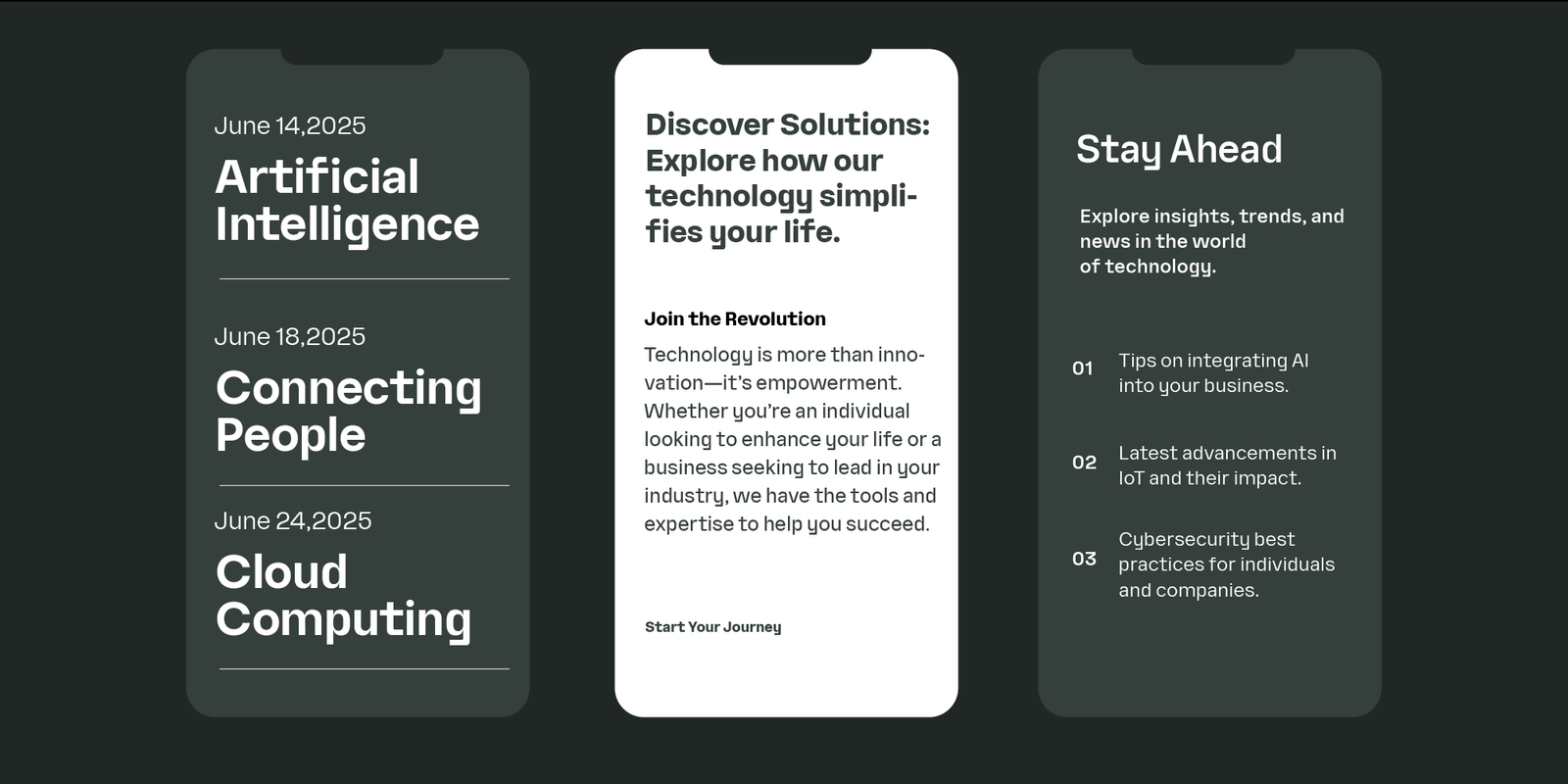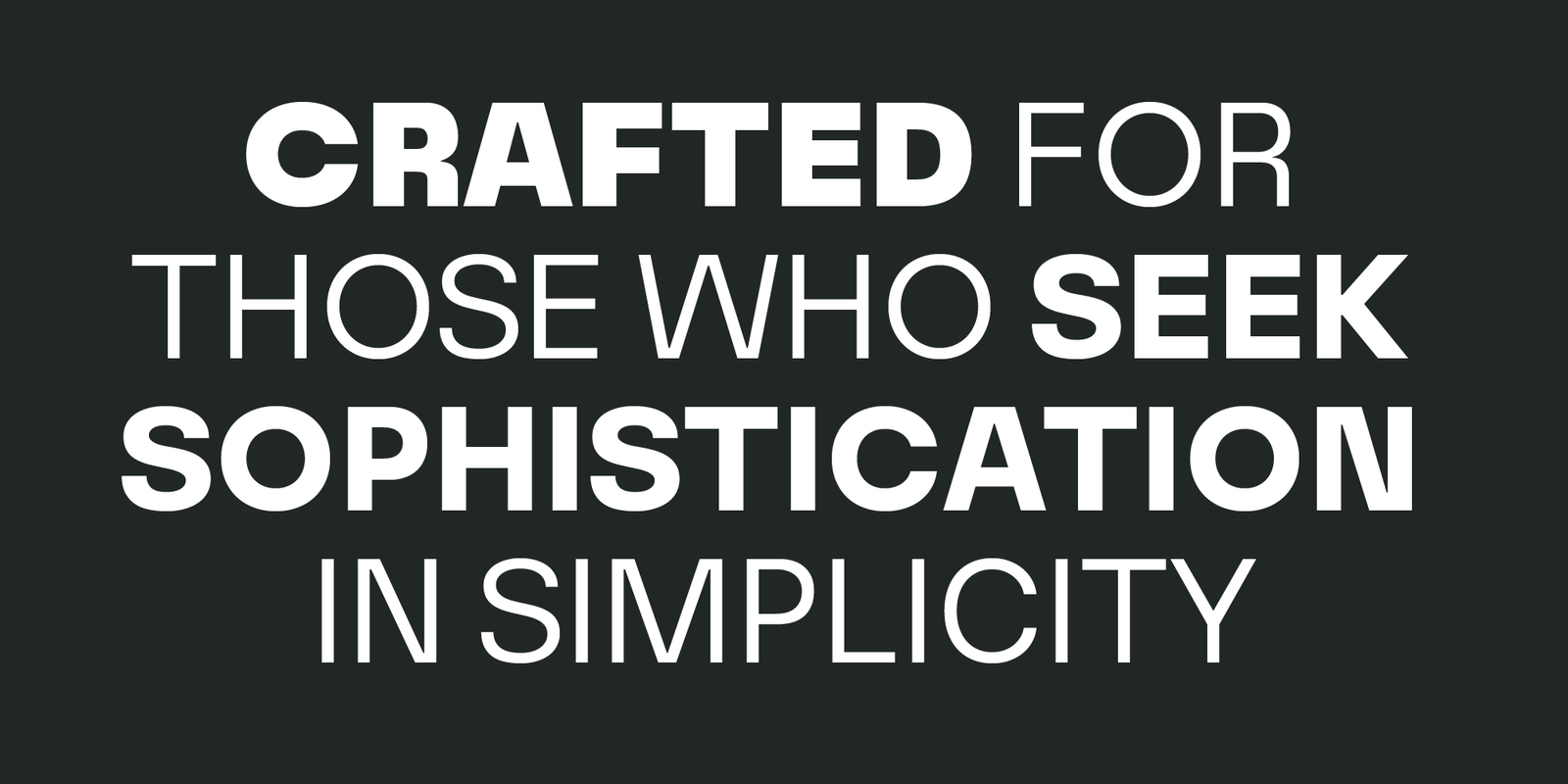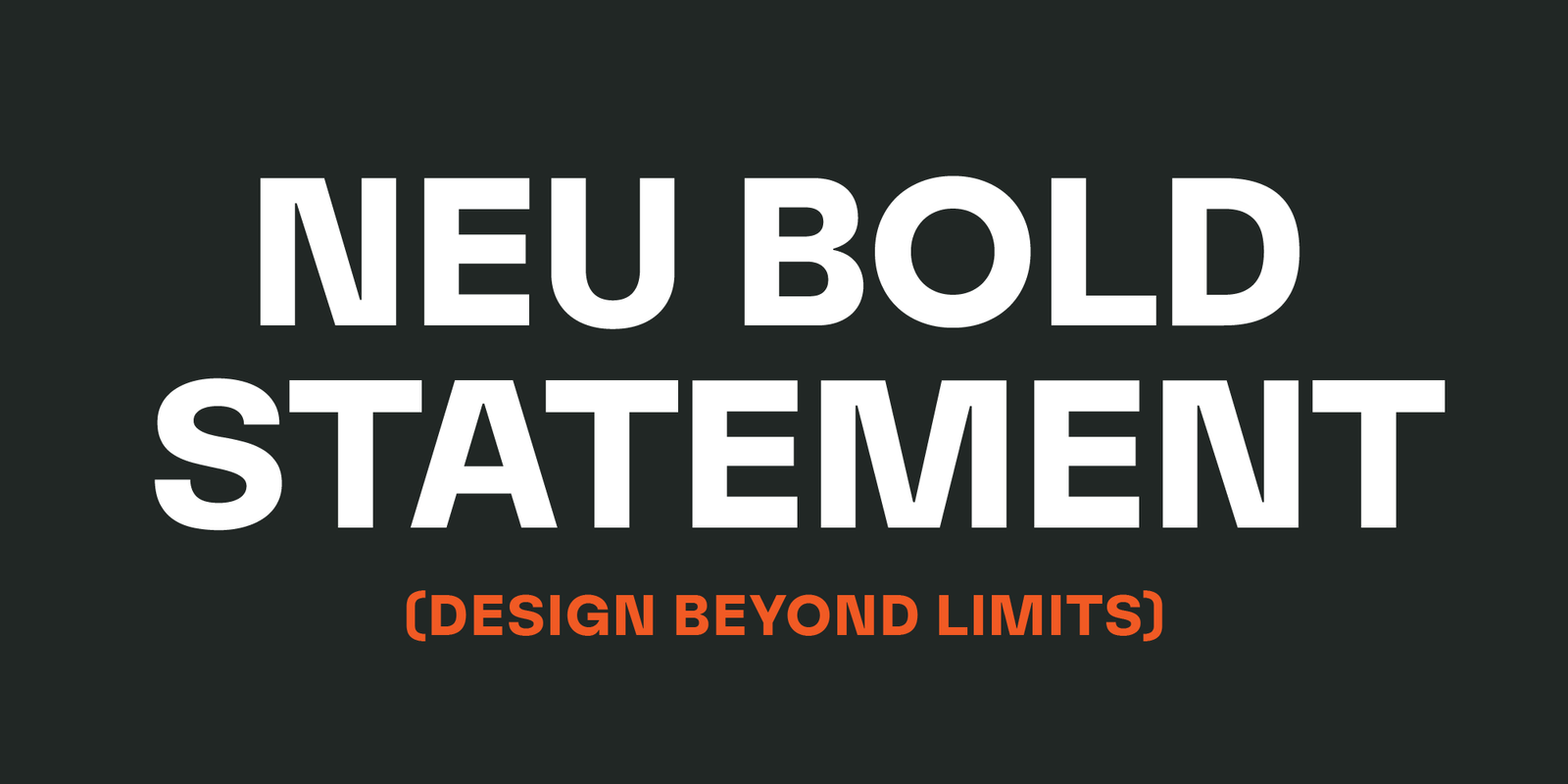
Minavora is a modern sans-serif font family crafted with precision and minimalist aesthetics. Available in 9 weights, from Thin to Black, Minavora offers exceptional versatility for a wide range of design needs, including branding, editorial projects, and digital design.This font features clean, professional, and elegant characters, making it ideal for adding a contemporary touch to your projects. With extensive multilingual support, it’s perfectly suited for global use. Each weight is thoughtfully designed to achieve a perfect balance between functionality and style.
Whether you need striking headlines or subtle supporting text, Minavora delivers a consistent and captivating look. It’s the perfect choice for designers who value quality and flexibility in their work.